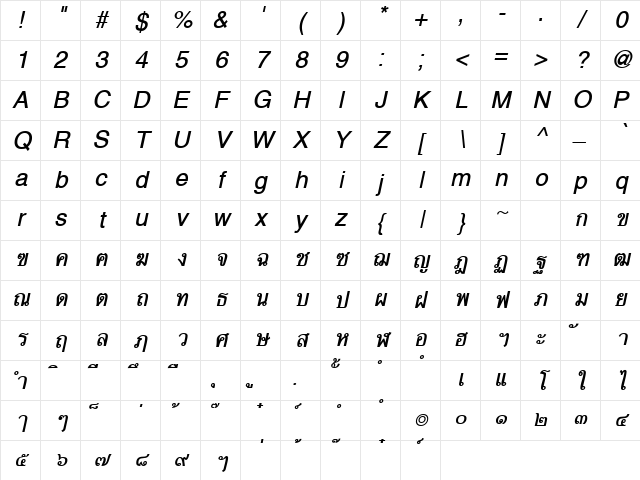
ThaiBangkokSSK BoldItalic
Design Context for ThaiBangkokSSK
ThaiBangkokSSK is a composed and adaptable typeface that performs quietly and consistently across a wide range of design contexts. The slanted form adds forward momentum and visual energy. Its bold stroke weight gives it real presence on the page.